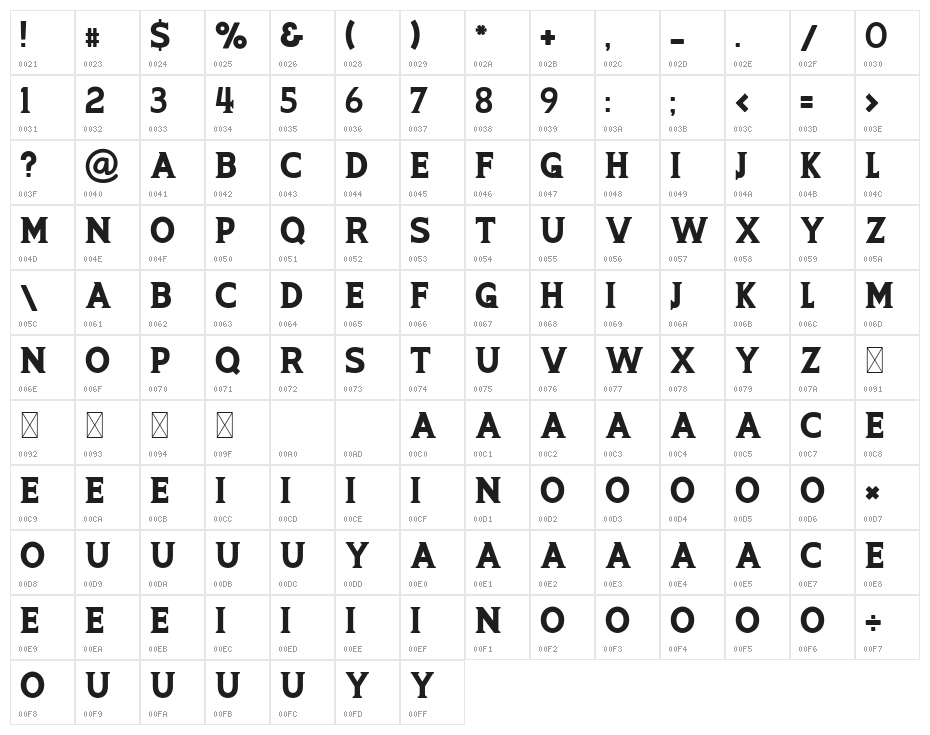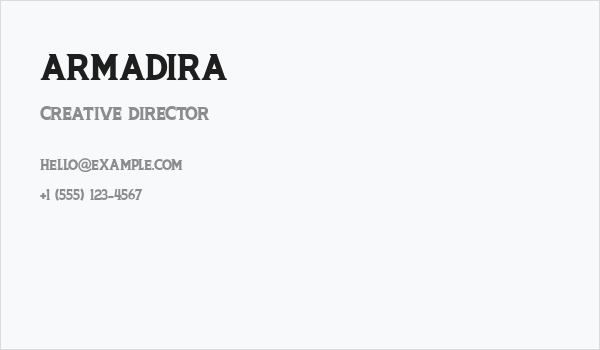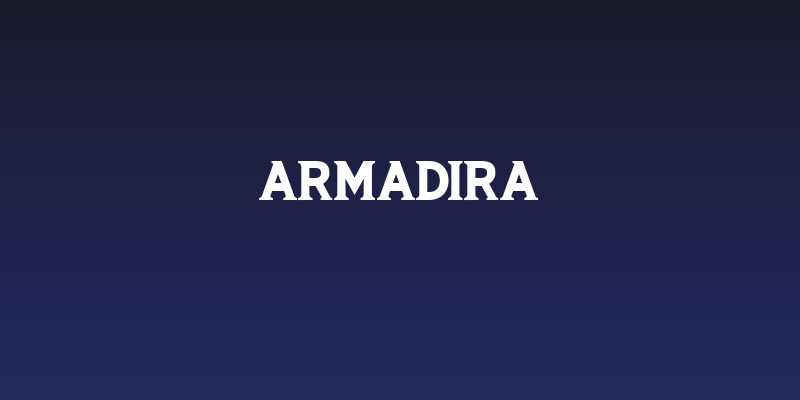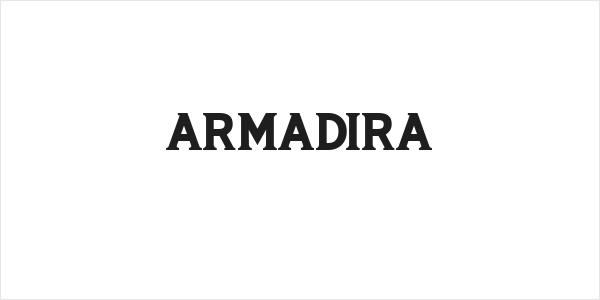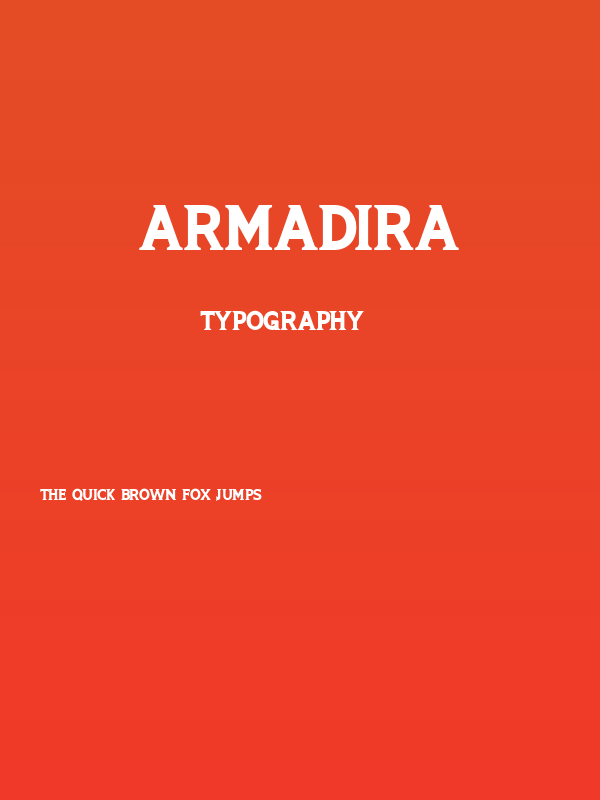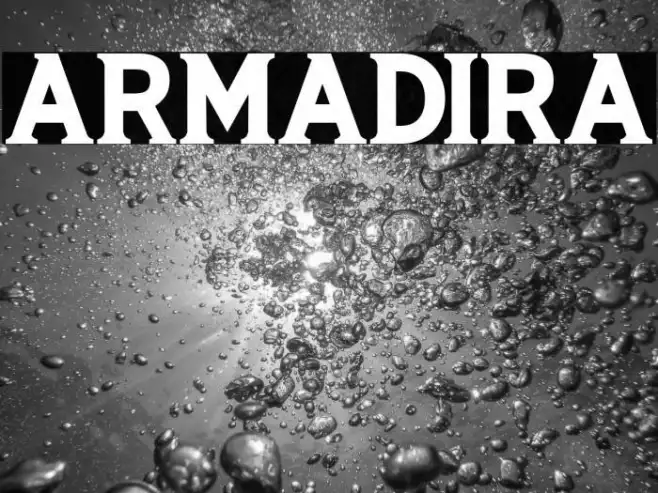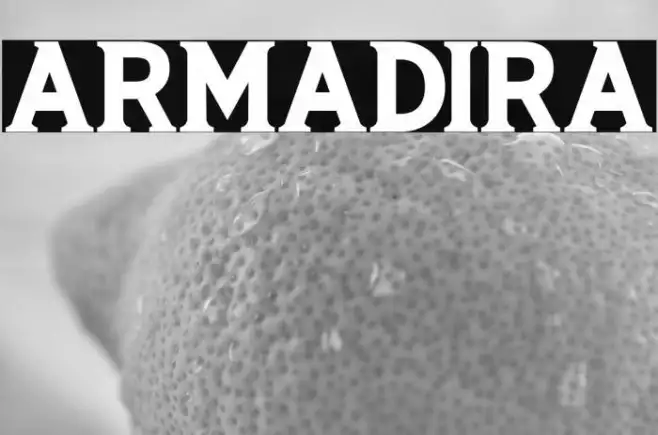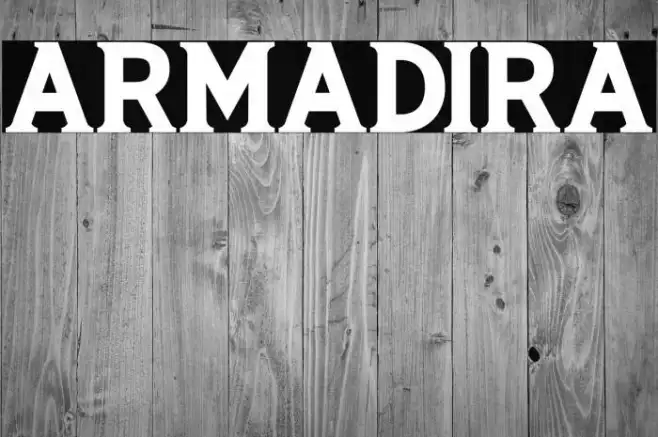
ARMADIRA Font
ARMADIRA Description
This font features bold, strong letterforms with a classic serif style. The characters are well-defined with thick strokes and prominent serifs, giving it a traditional yet powerful appearance. The uppercase letters are particularly striking, with a commanding presence that makes them ideal for headlines and titles. The numerals are equally bold, maintaining the same weight and style as the letters, ensuring consistency across all text. Special characters are included, each designed with the same attention to detail, making this font versatile for various uses. The overall design is balanced, with a slight emphasis on vertical strokes, adding to its authoritative look.
| Proposed Projects | Ideal for editorial design, book covers, branding, and advertising where a strong, traditional presence is desired. |